Amberwood began as a concept for a brewery logo and after a number of false starts, eventually became the font it is today. Amberwood is a blending of blackletter and sans serif.
In 2016, I was hired to make a logo for a start-up brewery called Amber Wood Brewing. The concept for the brewery was “a modern take on uncommon German recipes,” which I expressed by combining blackletter characteristics on a sans serif base. Amberwood also needed to evoke imagery of being in a dense wood so I devised a set of “rules” that then became the base concept for the typeface drawings.
The brewery was eventually renamed Sundown Brewing before launching so the Amberwood wordmark never saw the light of day. I tucked the idea into the back of my hard drive and waited.
Three years later in 2019, I was invited to participate in the inaugural run of Public Type Works. The idea was to create a rough draft of a font and gather backers who would fund the project (like Kickstarter) and if successful the font would have been available open source at the end of the project.
I chose Amberwood and built out the remaining letters in a quick draft. It was far enough along to make some quick graphics to garner interest but still had a long way to go before becoming a cohesive font.
It was a fun experiment but unfortunately, there was not enough interest in funding open-source fonts and I set Amberwood aside for a second time.
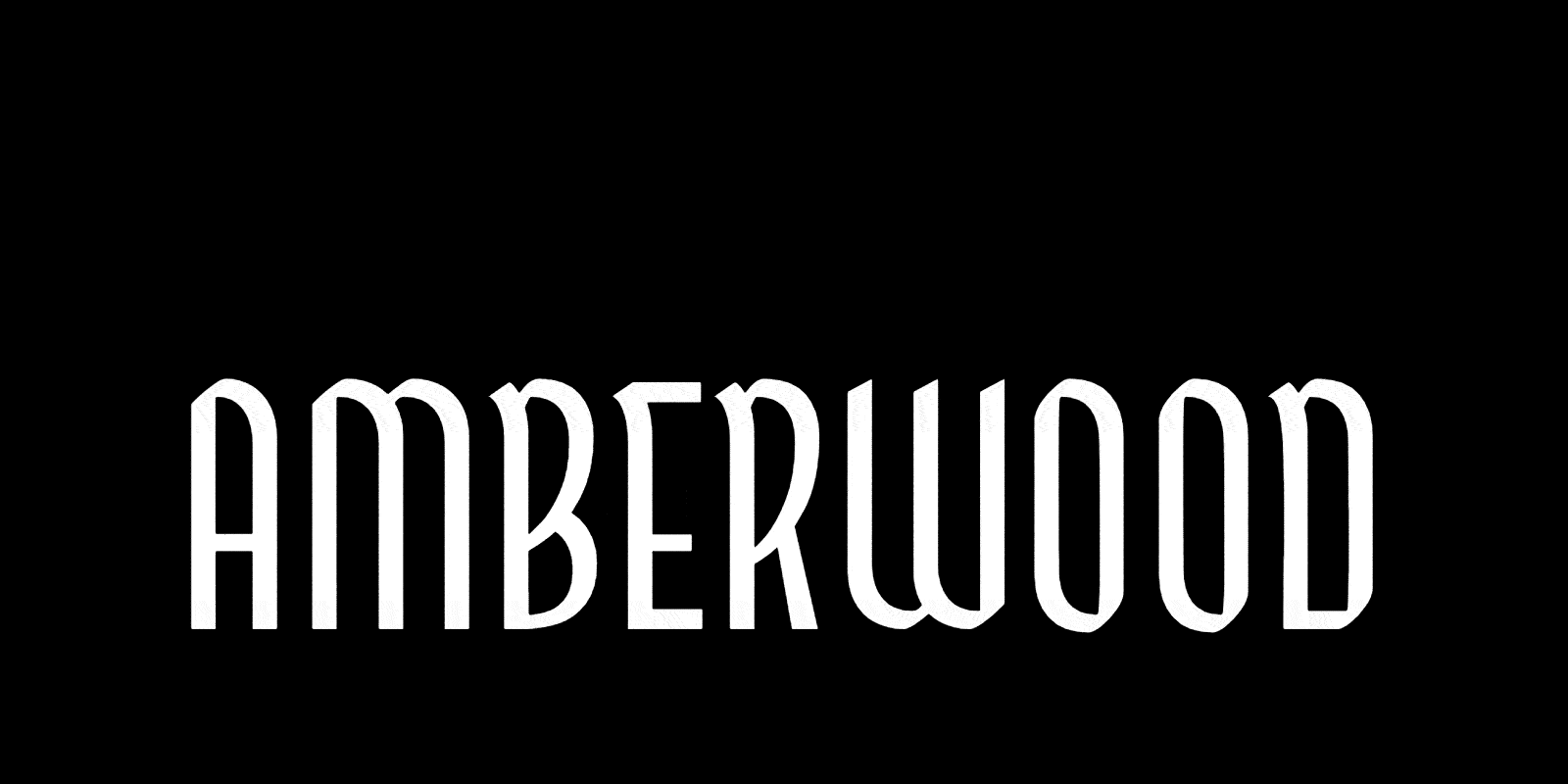
The graphics I made to promote Amberwood on Public Type Works included a tease of a possible height axis which was debated three years later in a Twitter thread about whether a height axis should be included in a font. A screenshot of Amberwood was posted in the thread and caught the attention of a book designer who thought it would be perfect for an upcoming series of fantasy novels.
This was the final push I needed to dust off Amberwood for a third time and get those letterforms sorted out! Working with publishing deadlines meant that I had only a month to finish Amberwood making this the quickest draft to final font file that I have ever done (even though the draft took 6 years to make 😂).
I did another study of blackletter with my parallel pen to make sure I was bringing in enough blackletter DNA to the project.
I discovered that in my Public Type Works draft, I had lost a little too much blackletter flavour (I’m very good at refining things to blandness). I revised my “rules” to include more character and consistency.
One of the things I struggled with until nearly finished was the W and V characters. It was a symptom of a wider problem that comes with a tall, condensed design containing a lot of straight sides – it can become difficult to differentiate each letter from another. Much of type design is creating unity with consistency but there is a point in which consistency turns on you and becomes the enemy. I had to come up with an entirely different pointed bottom shape for these two letters that ended up breaking some of my other rules but increased readability and lessened the confusion between the V and the U.
Even after introducing more differentiation between letters, the shapes in Amberwood remain very consistent and have a lot of repeating shapes throughout the design. The following is an example of which letters share their shape with other letters.
Amberwood strikes a nice balance between having a blackletter flavour while remaining quite legible compared to other blackletters. This makes it ideal for packaging, logos, book covers, and other display instances. I hope to see it out in your designs soon!